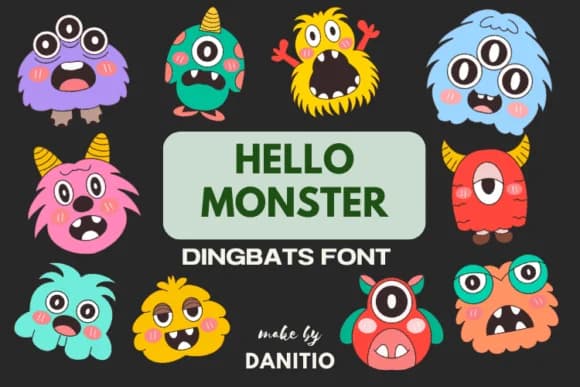
Hello Monster, designed by danita.kukkai, delivers a collection of cute creatures drawn in a retro style that borrows from vintage anime and Japanese illustration. What distinguishes these monsters is their balance of strangeness and approachability, each character rendered with just enough cartoon charm to disarm rather than intimidate. The variety across the set ranges from cute to genuinely odd, giving designers room to pick the right creature for whatever tone they're aiming for.
You'll find real utility in sticker sheet design, Halloween party invitations with personality, children's coloring books and activity pages, and tabletop RPG campaign materials where these monsters serve as creature tokens or decorative elements. The dingbat structure means every glyph is a standalone character illustration, ready to layer, repeat, and remix across greeting cards, t-shirt designs, indie game graphics, and packaging that needs a playful monster aesthetic. Designers working on indie comics also gravitate toward this kind of character resource, since the visual consistency and nostalgic energy create a cohesive look across panels.
Hello Monster Font